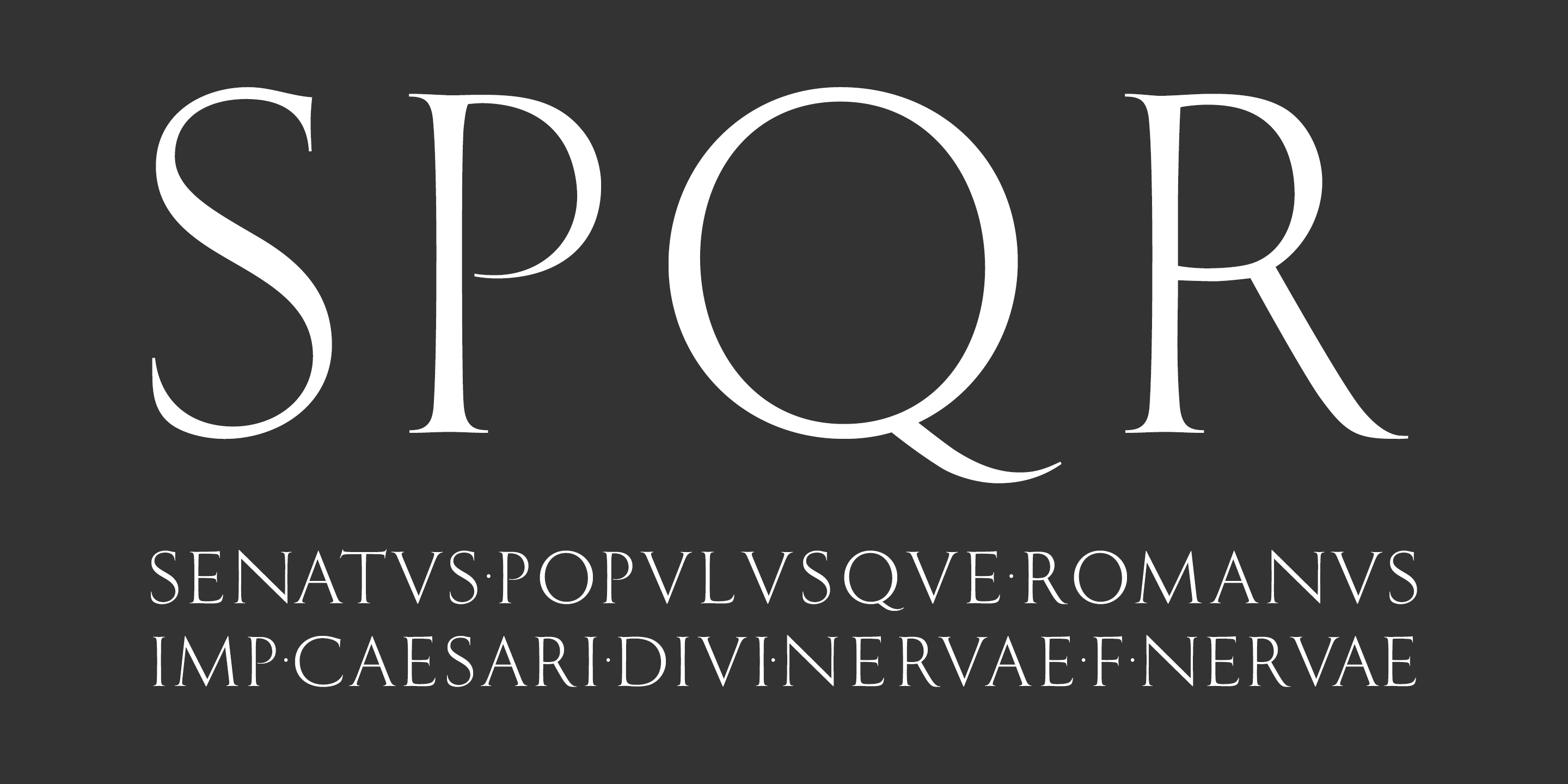
FS Rome Font is perfect for luxury fashion brands, high-end architectural firms, premium Italian restaurants, classical art galleries, sophisticated hotel branding, elegant jewelry collections, timeless corporate identities, and prestigious cultural institutions.
FS Rome Font is exciting because it masterfully captures the eternal grandeur and sophisticated elegance of the Eternal City through its refined character design that perfectly balances classical Roman proportions with contemporary typographic excellence. Its majestic presence and timeless appeal make it the ideal choice for brands that want to communicate prestige, heritage, and the enduring sophistication of Roman civilization.
The FS Rome Font family includes multiple classical variations: FS Rome Light, FS Rome Regular, FS Rome Medium, FS Rome Bold, FS Rome Italic, and FS Rome Display, along with small caps and extensive language support, providing designers with comprehensive tools for creating sophisticated classical and luxury brand experiences.
When seeking prestigious classical typography solutions, FS Rome Font Free Download emerges as the definitive choice for designers working on luxury and heritage-focused projects that demand the highest levels of sophistication and cultural refinement. This exceptional typeface embodies the architectural perfection of ancient Rome while offering the technical precision that contemporary luxury brands require. The font's noble proportions and classical heritage create immediate recognition of quality and exclusivity among discerning audiences.
Professional designers consistently choose FS Rome Font for projects requiring authentic classical elegance and prestigious visual impact. Its meticulously engineered letterforms feature Roman-inspired details that work exceptionally well in both intimate luxury packaging and grand architectural applications. The font's ability to convey authority and timeless beauty while maintaining perfect readability makes it invaluable for comprehensive brand identity systems in the luxury, hospitality, and cultural heritage sectors.
Whether you're developing luxury hotel identities, creating premium product branding, or designing cultural exhibition materials, FS Rome Font delivers the classical magnificence and sophisticated appeal that resonates with audiences who appreciate timeless elegance and cultural refinement. Its historical significance and contemporary excellence ensure your designs achieve the prestigious status that defines truly exceptional luxury experiences and cultural institutions.